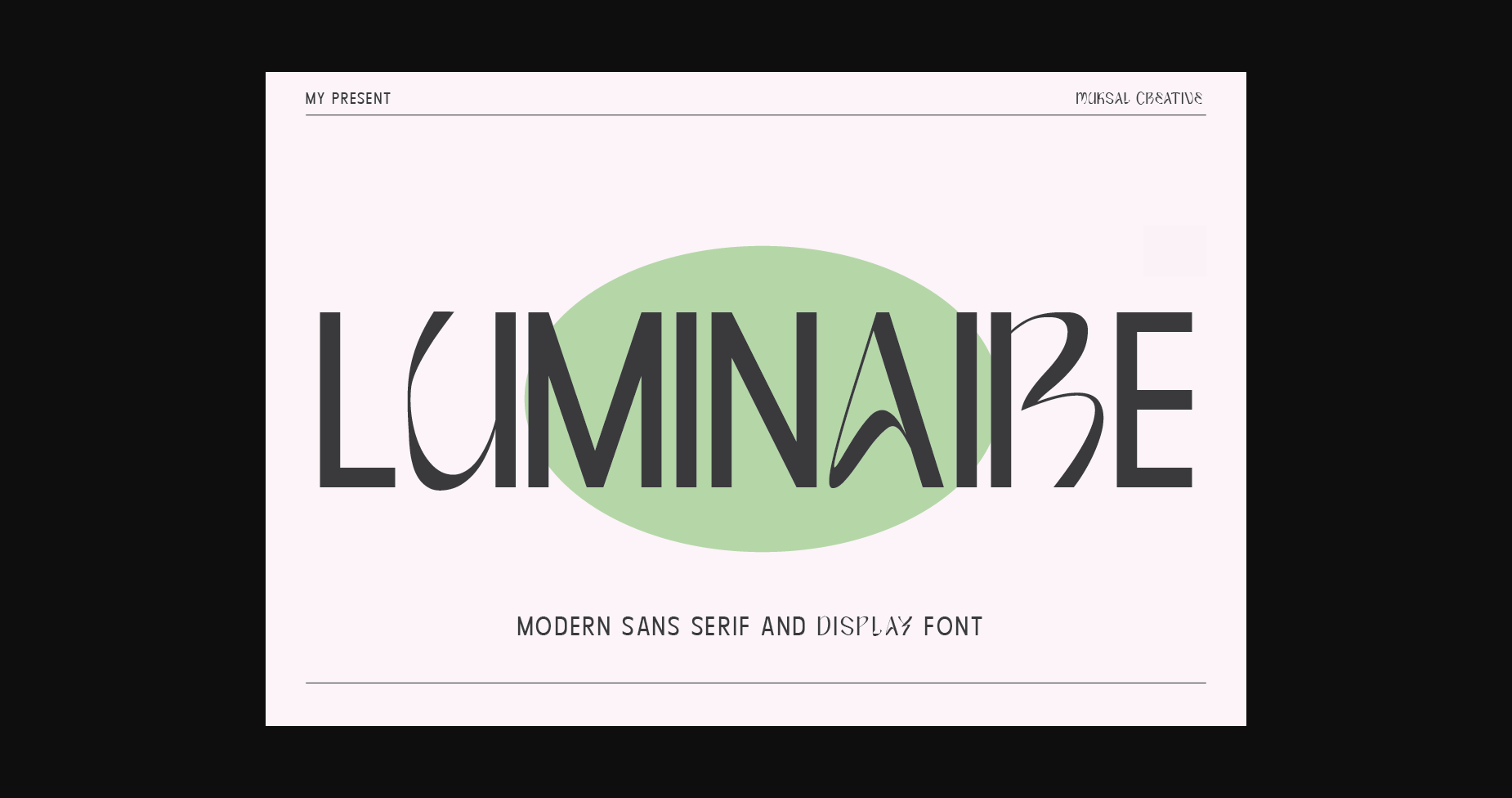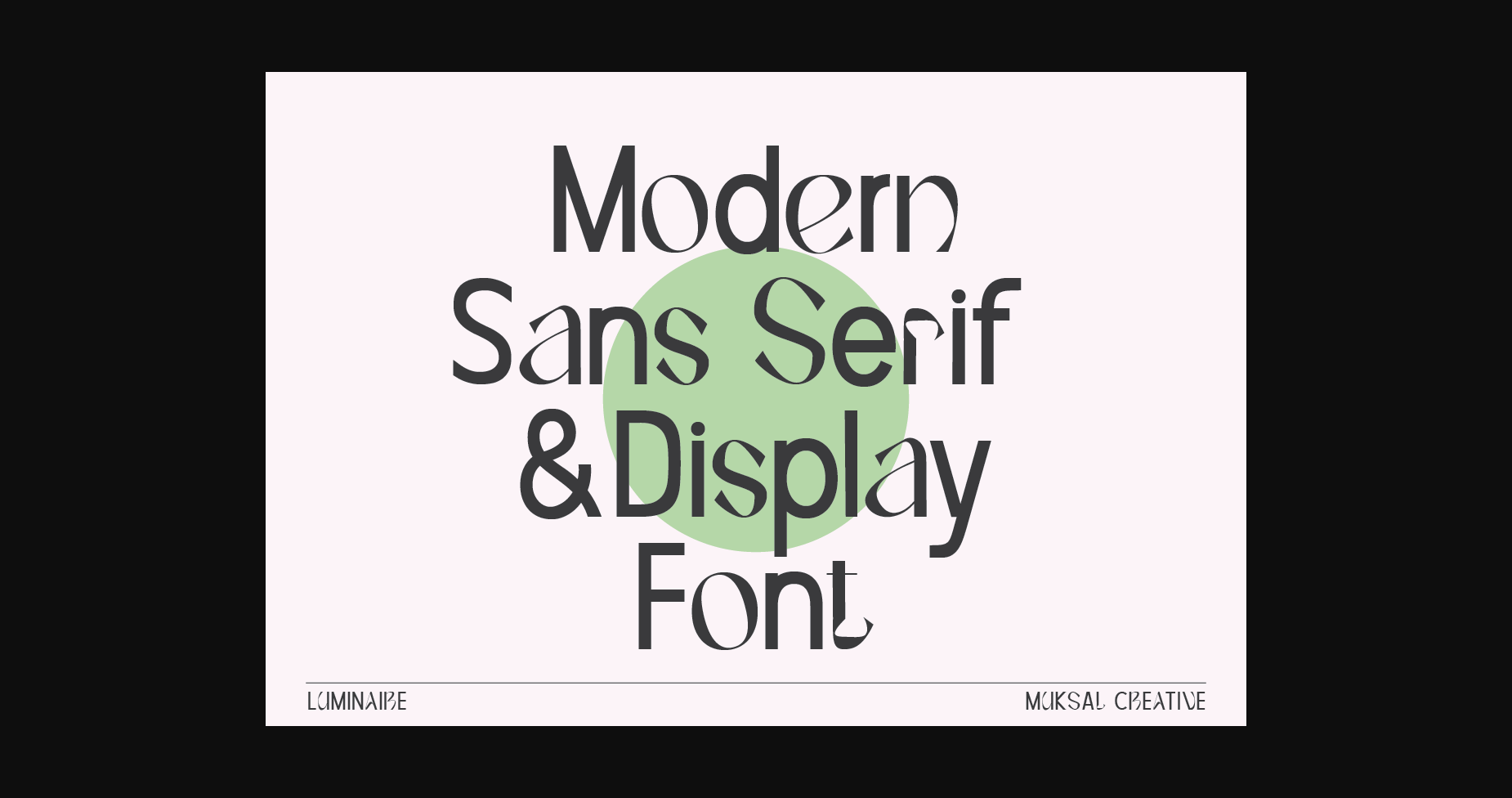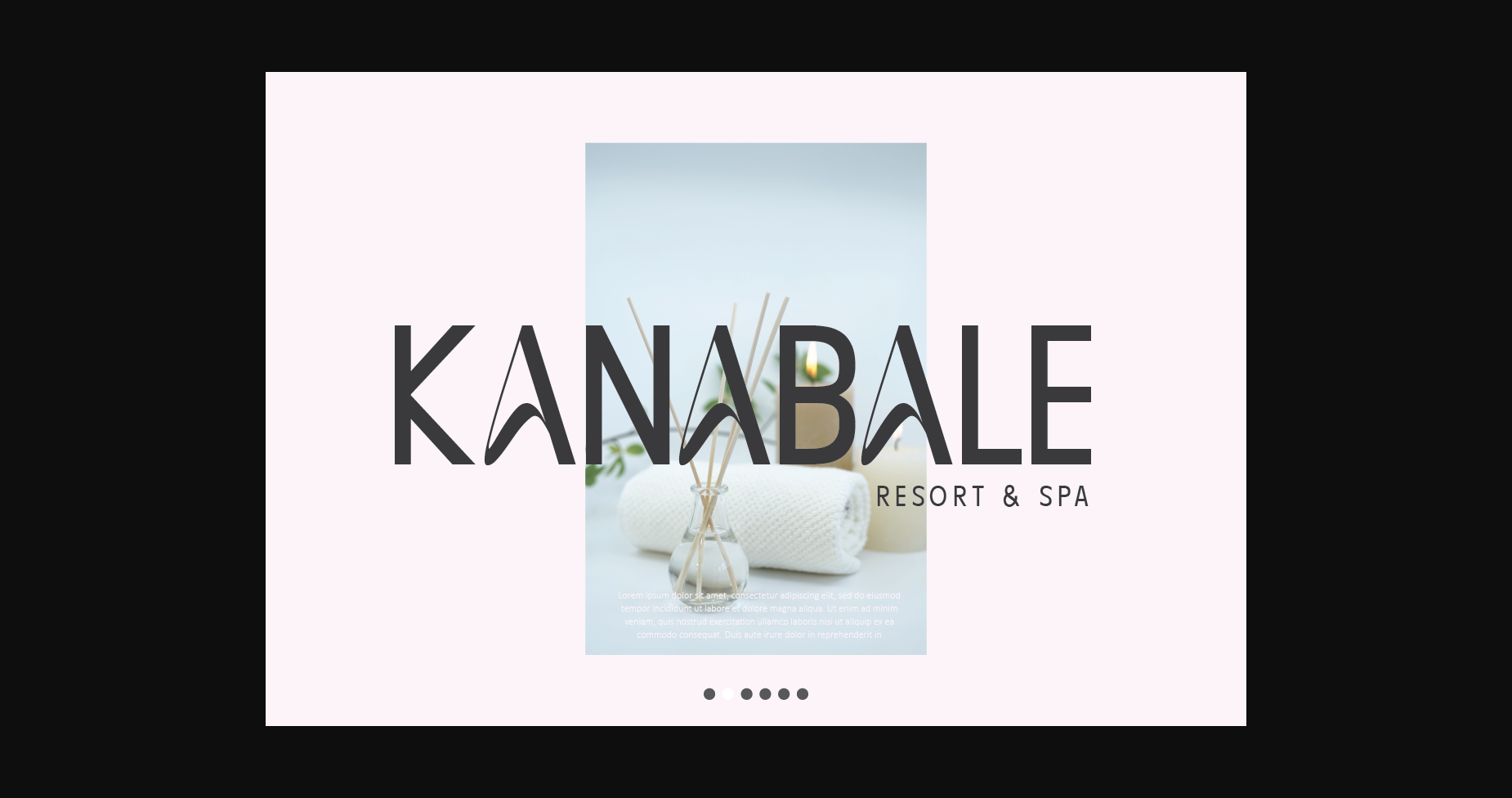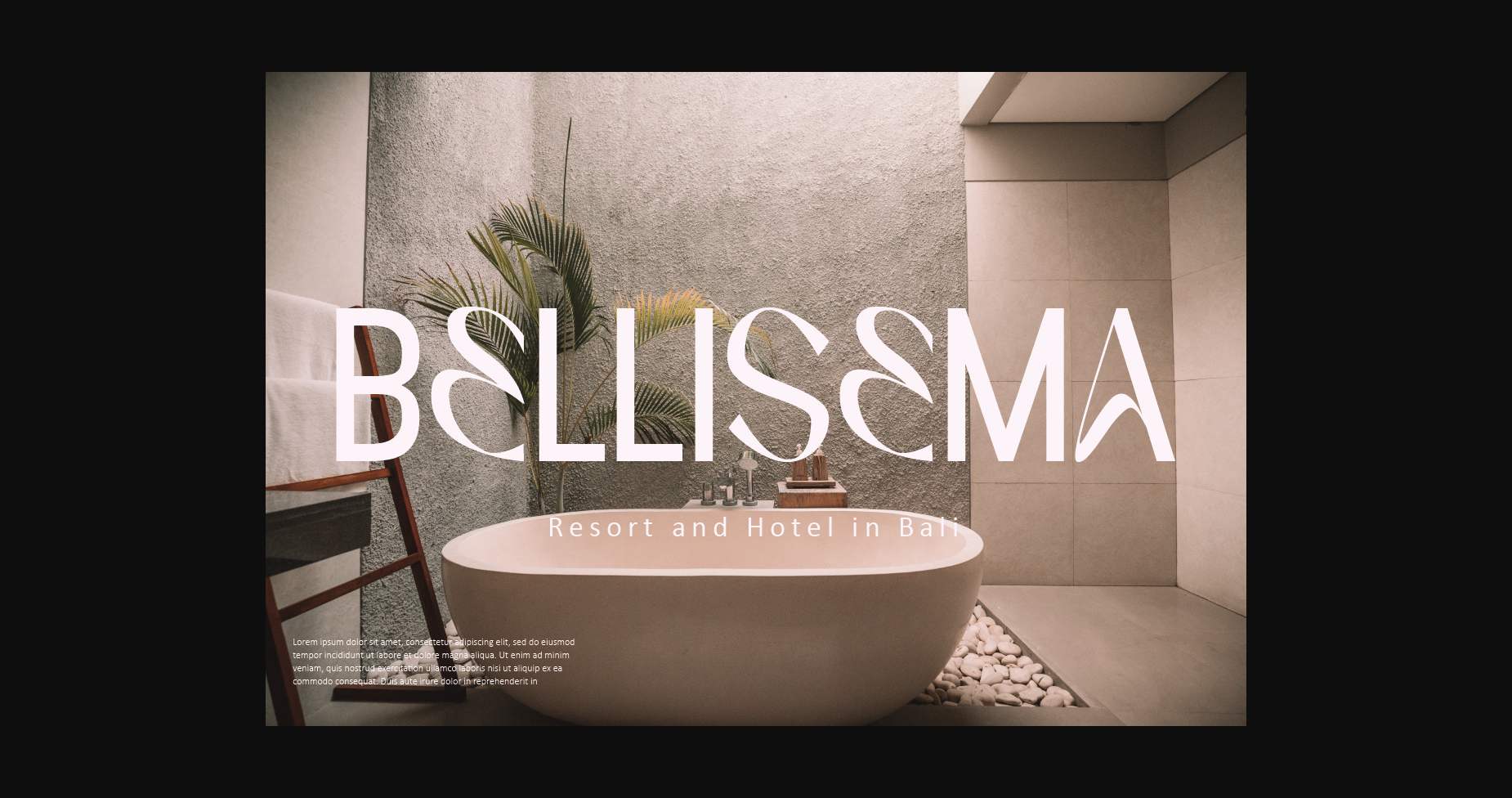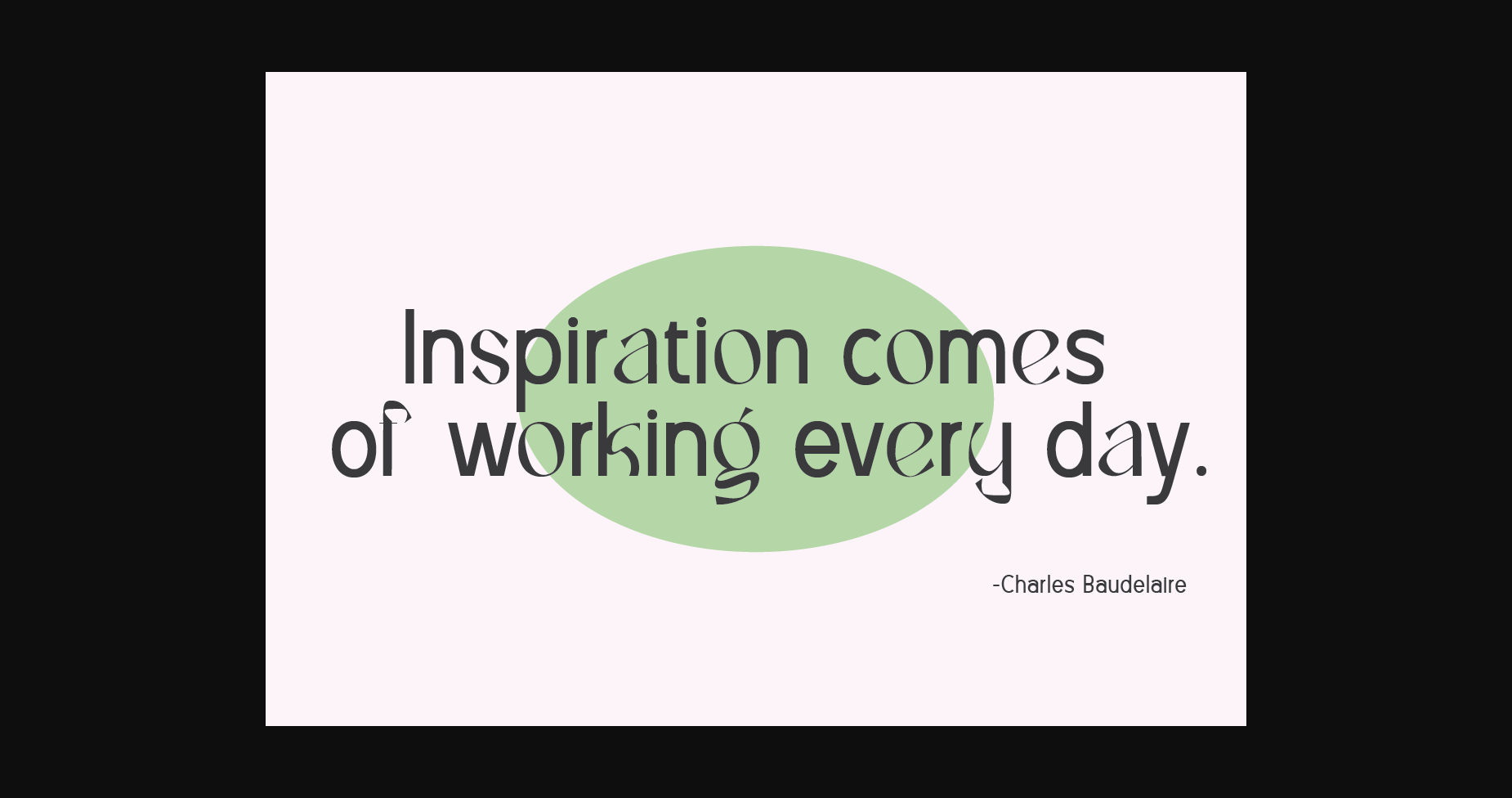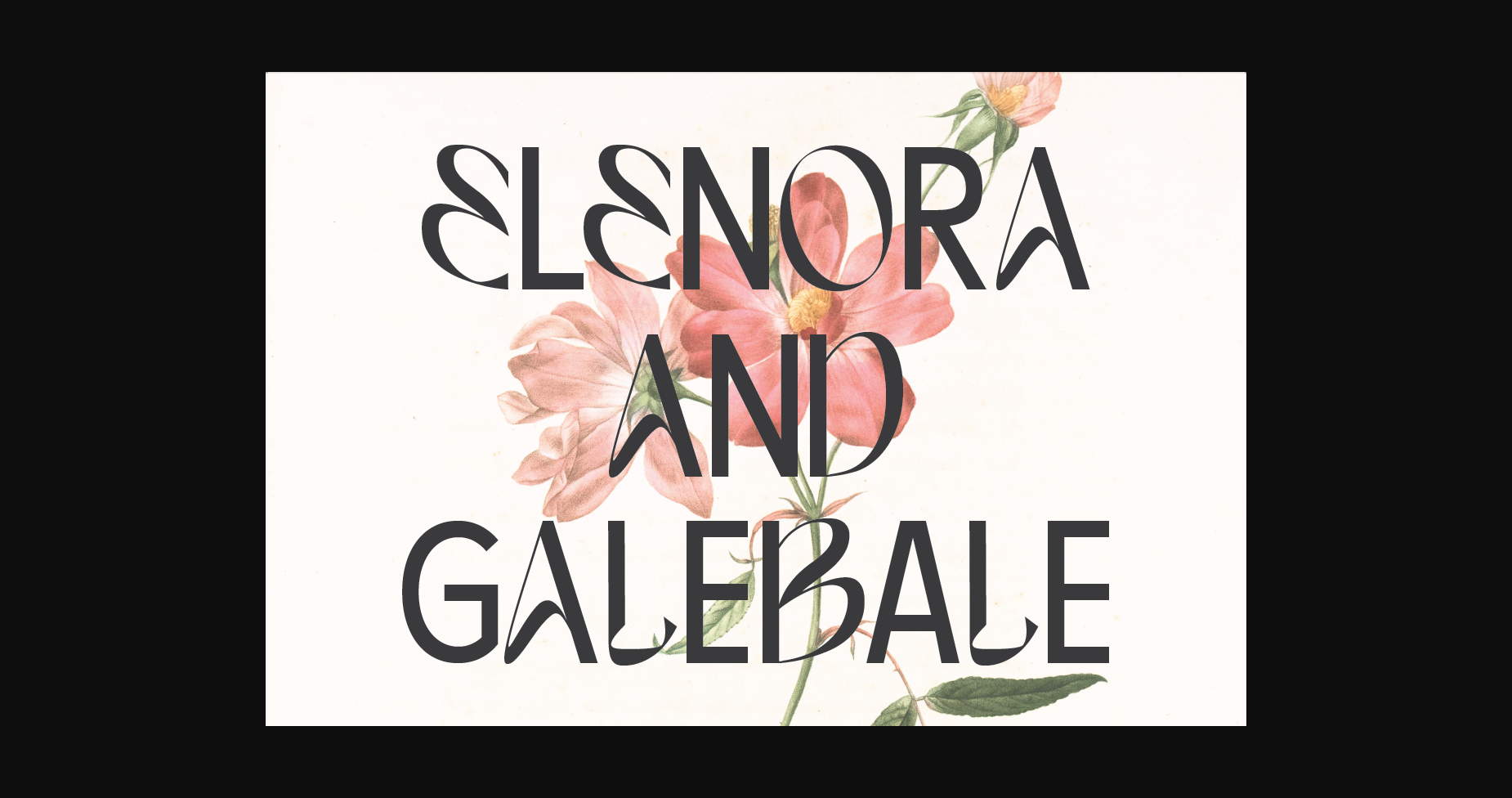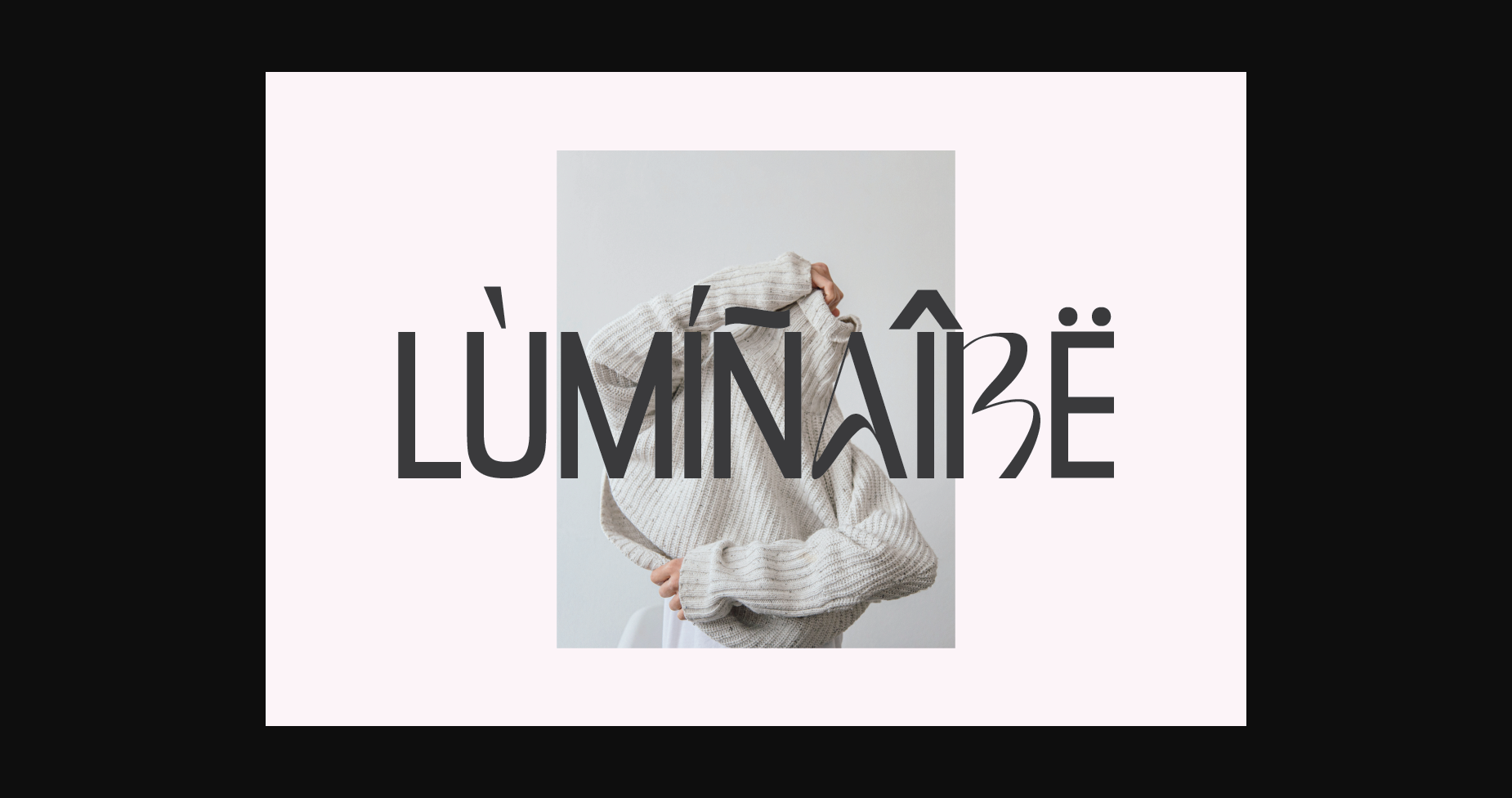
Luminaire Font
About Luminaire Font
Luminaire is an intriguing and modern sans serif font. With its clean and minimalist characteristics, Luminaire exudes a professional and contemporary impression when used in designs. It can add artistic touches and uniqueness to your designs while preserving the important aspects of clarity and legibility.